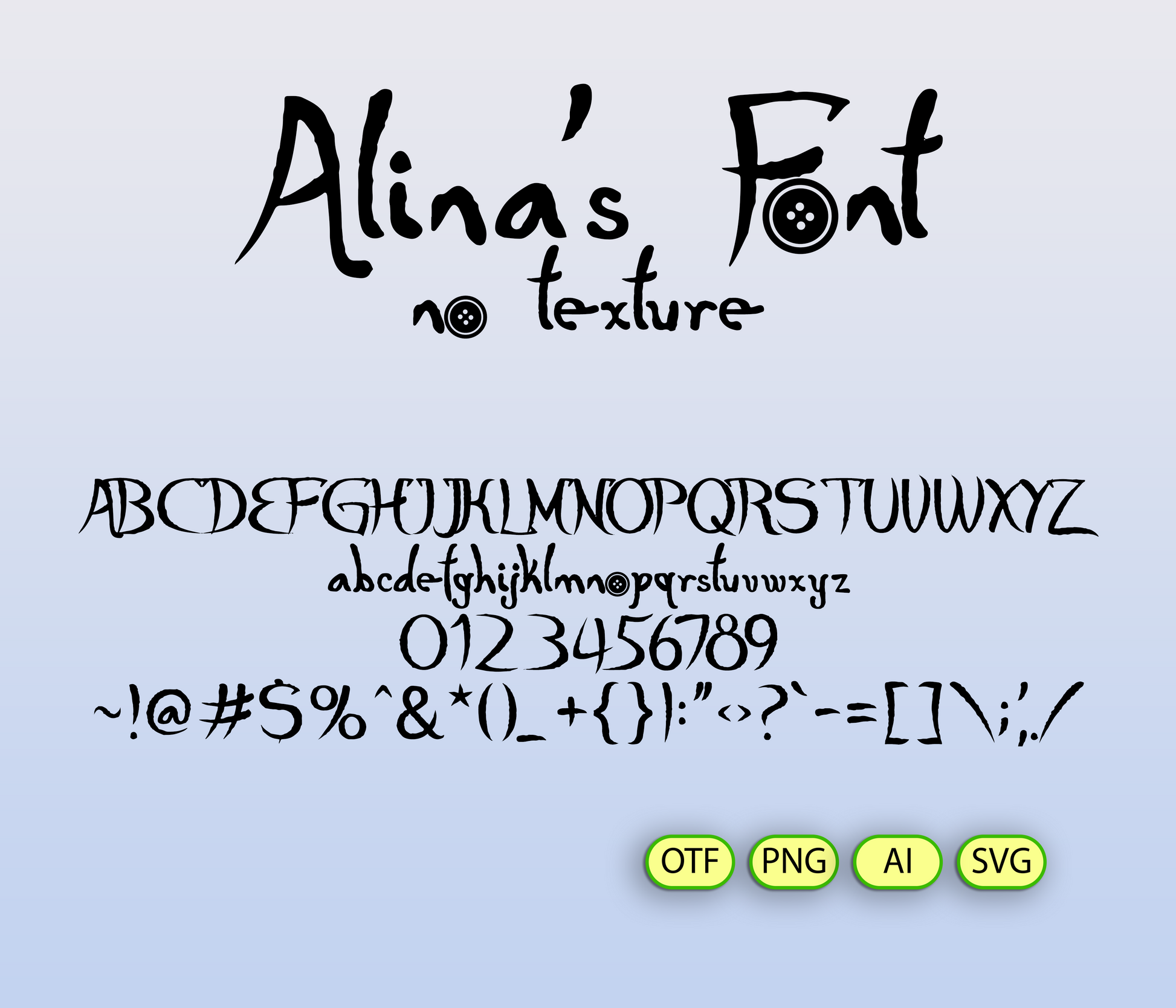
Stitched Reality Font
Dive into a realm where imagination intertwines with the extraordinary through our Stitched Reality font. This mesmerizing typeface encapsulates the journey of a curious youngster traversing between two worlds, marrying innocence with a subtle touch of the uncanny. Perfect for projects that seek to evoke a sense of childhood adventure tinged with mild otherworldliness.
Our Stitched Reality font features a distinctive, handcrafted appearance with slightly off-kilter characters that allude to the blurred boundaries between the familiar and the fantastical. Ideal for:
1. Youth Literature: Craft engaging covers for tales of magical doorways and hidden realms
2. Stop-Motion Aesthetics: Enhance titles and credits in films featuring miniature, handmade worlds
3. Digital Playgrounds: Add a touch of quirky mystique to game interfaces and menu screens
4. Enchanted Attractions: Design signage for family-friendly spooky experiences and themed events
5. Web Wonders: Create captivating headers and graphics for sites dedicated to imaginative storytelling
6. Whimsical Wearables: Design apparel and accessories inspired by pocket universes and magical adventures
7. Autumnal Celebrations: Develop materials for slightly eerie yet family-oriented festivities
Whether you're crafting promotional materials for a fantasy-themed event, designing merchandise for fans of magical narratives, or adding an enchanting touch to personal projects, this font communicates the wonder and gentle unease of exploring mysterious alternate realities. Ready to bring the spirit of button-eyed adventures to your creations? This font is your key to captivating, imaginative design.